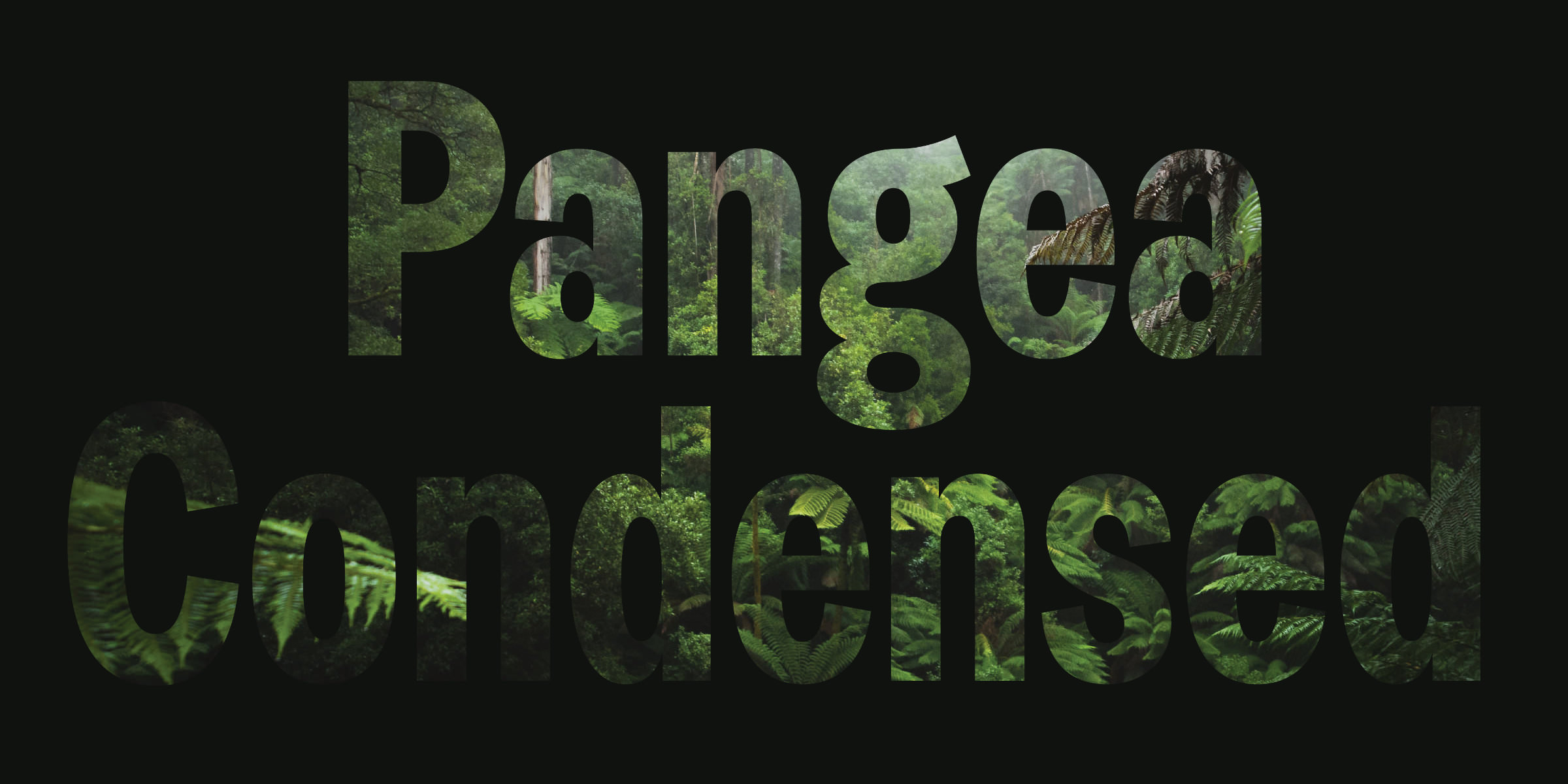
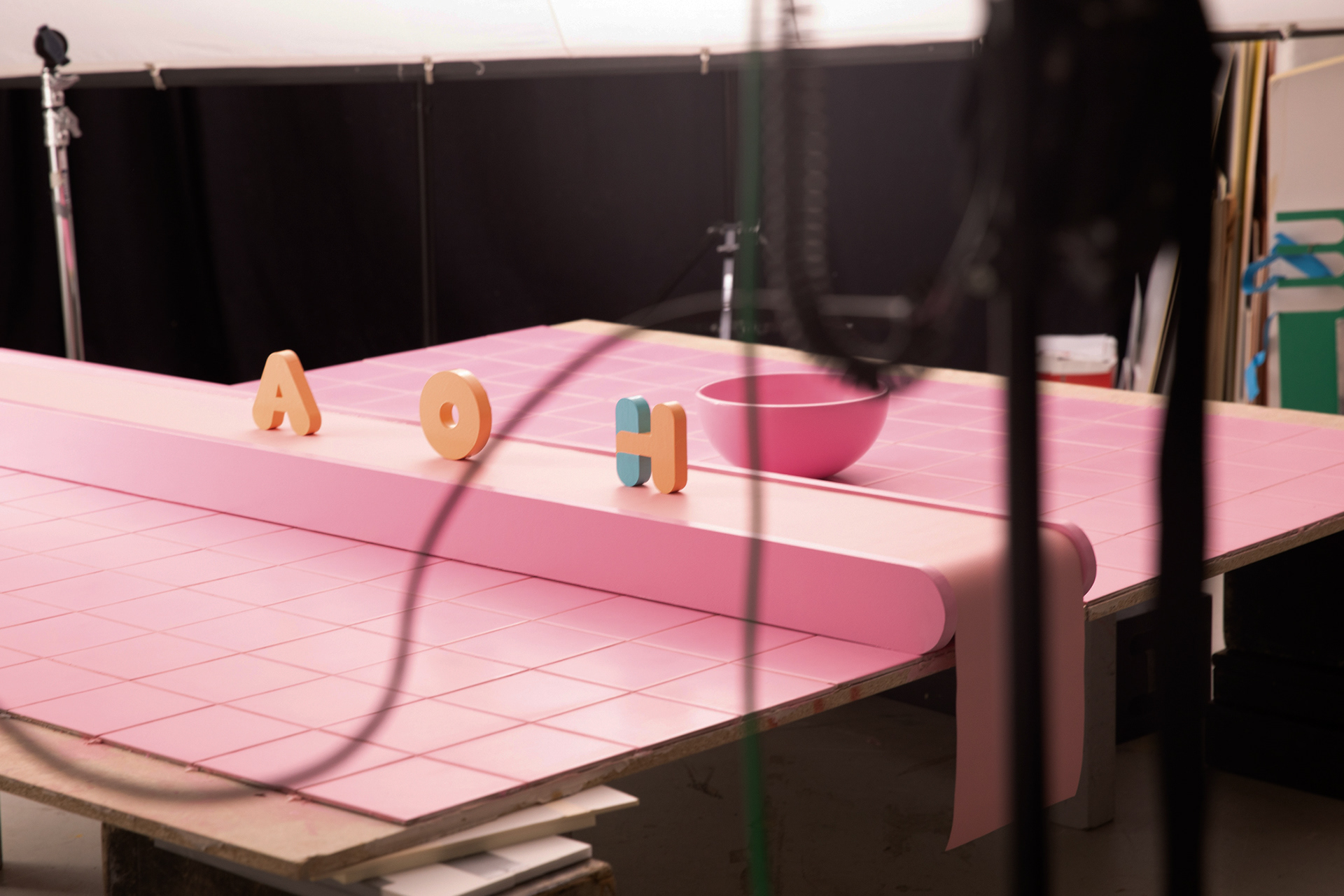 | ‘BUT IS IT REAL?’ – BEHIND THE SCENES OF THE HAMSTER VIDEO |
Behind every type design is an origin story, a tale of how that first flicker of inspiration was transformed into the final fonts. One could argue that in fact it takes a village to make a typeface (and sometimes also its marketing), so in this edition, we share a little bit about the making of the Hamster Video, and in other news, we have a special announcement for fans of Pangea. |
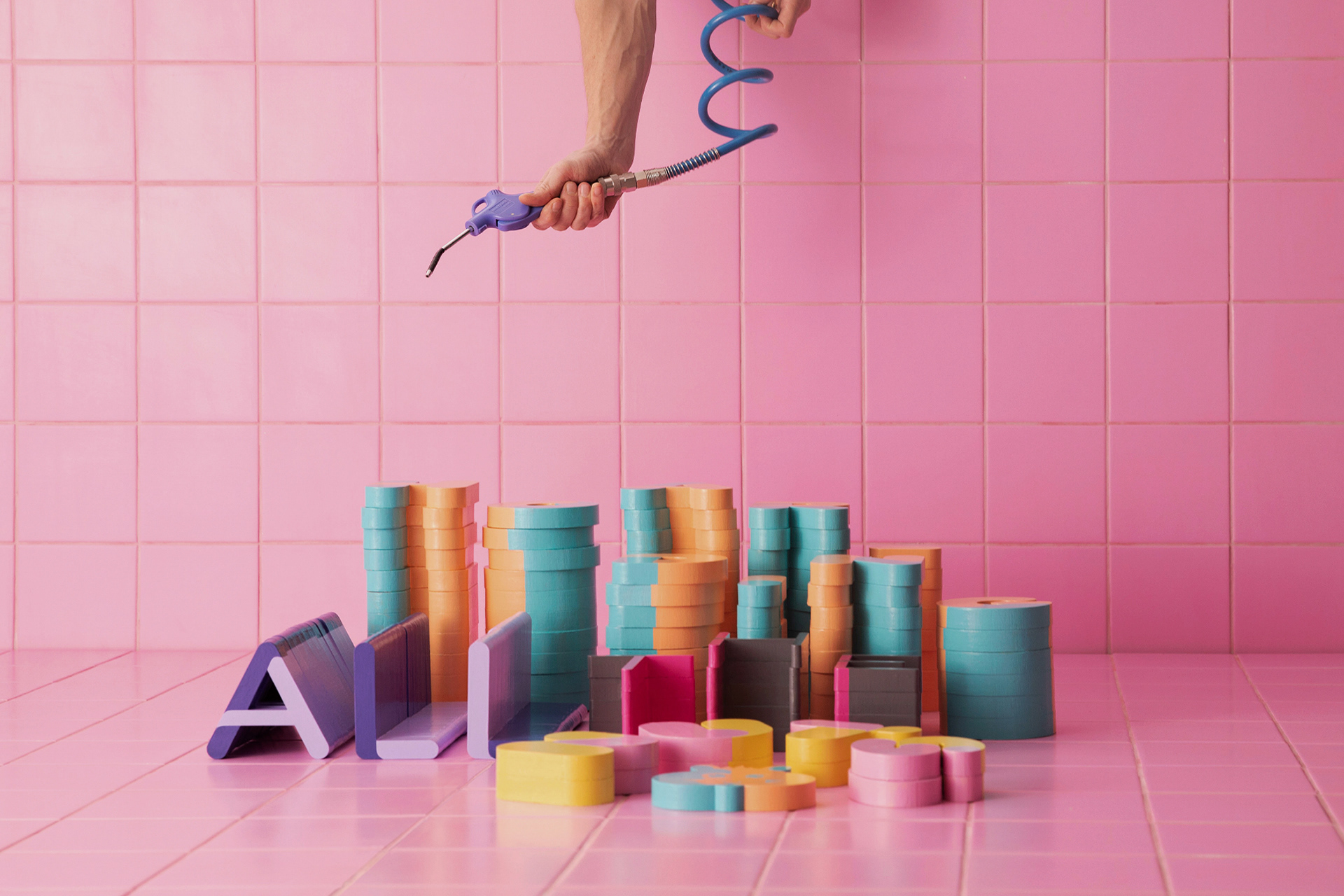 | | What may look like a random letter falling over was the result of lots of trial and error behind the scenes. (© Photos: Golden Retriever) | |
| | ‘Is it a 3D animation?’ ‘How can it be real?’ These are just a couple of the many comments we received when we launched the video for our latest release, Hamster by Joe Stitzlein. We can confirm that yes it is, in fact, very real and each of the 86 laser-cut wooden letters were hand-painted by a team of fourteen (!) creatives, from the Stockholm-based creative magicians, SNASK. We have long admired them and their creative and completely unique approach to any project they undertake. So, when Hamster, our first color font, came into the family, in SNASK we found the perfect partner to bring to life this glorious and fabulously fun font! Unlike any other font release, we gave SNASK free rein and they really let off creative steam. Since we received more comments and questions about the campaign then ever before, we’d like to reply to them by pointing to their beautiful behind the scenes story in all its paint dripping and colorful glory. | |
| | Coming soon: Pangea Condensed Pangea, our climate-conscious and ever expanding superfamily designed by Christoph Koeberlin, is getting more widths! Three in fact, SemiCondensed, Condensed and XCondensed, making it even more versatile and adaptable to any design brief. Pangea is our most multilingual family and 25% of all designer royalties are donated to preserving the rainforest and to implementing large-scale reforestation projects. If you are interested in getting your hands on some Beta fonts and giving Pangea Condensed a whirl before it is released later this year, please email us. | |